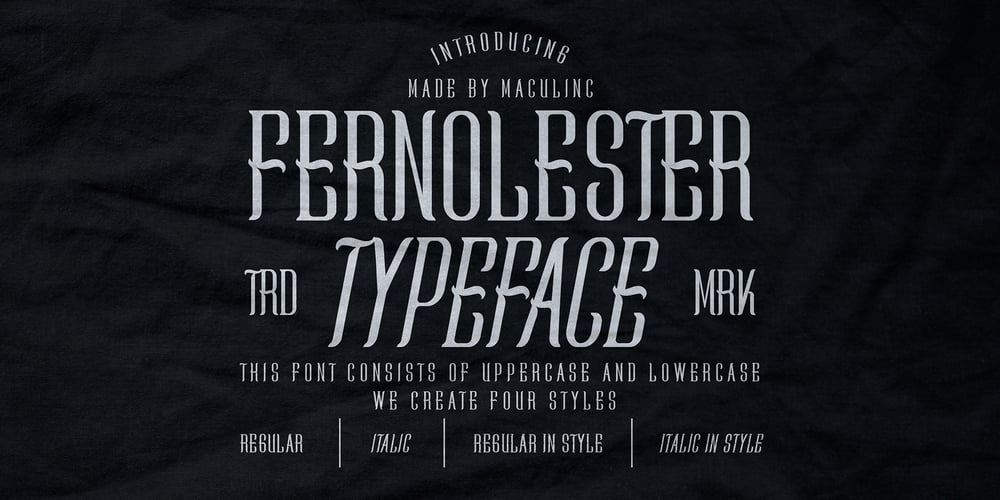
Fernolester Font Family was designed by Lukmanul Khikmatullah and published by Maculinc. Fernolester contains 3 styles and family package options. Fernolester is a classic themed font with a unique edge and above all; packed with different styles and ligatures – making it easy to create unique characteristics for your project. This typeface has a classic taste, very suitable as a design choice for books, magazines, packaging, branding, signage and many other creative projects.To activate the OpenType Stylistic alternative, you need a program that supports OpenType features such as Adobe Illustrator CS, Adobe Photoshop, Adobe Indesign & CorelDraw X6-X7. and much moreThis package includes 4 files; Fernolester Regular, Fernolester Italic, Fernolester Regular In Style & Fernolester Italic Instyle as OTF & TTF.Mail support : maculinc@gmail.comThank you!Maculinc